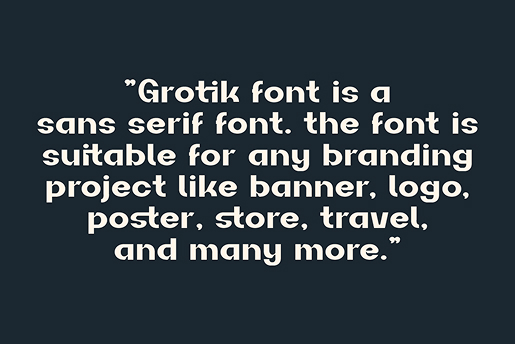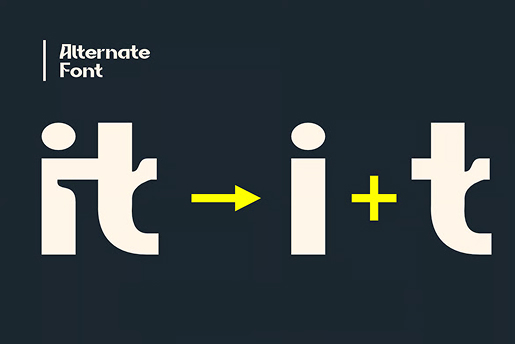
Grotik Modern Sans Font
Grotik Font is a bold, authentic sans-serif display font ideal for branding projects such as posters, logos, sports, and more. It stands out across a wide variety of uses.